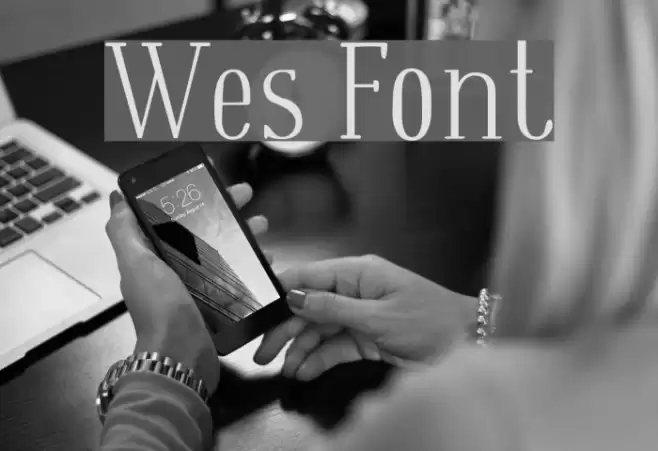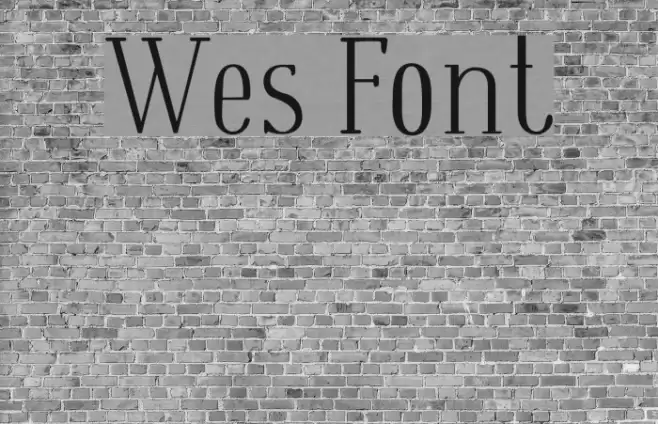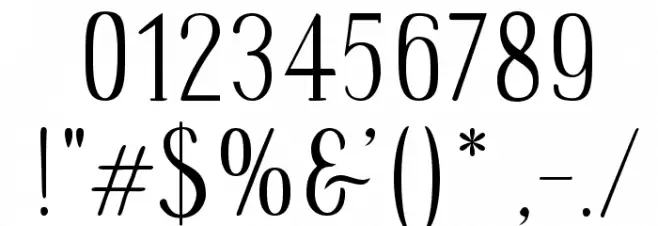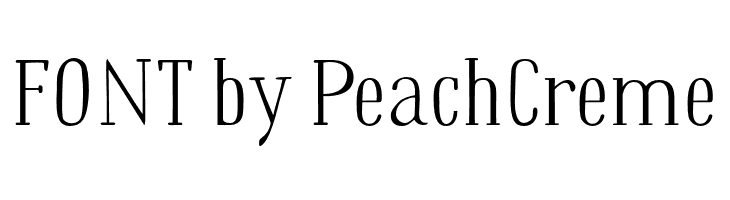
Wes Font
Wes Description
This font features a classic serif style with a modern twist. The uppercase letters are tall and elegant, with a slight curvature that adds a touch of sophistication. The lowercase letters maintain a consistent height, providing a balanced and harmonious appearance. The numerals are clear and distinct, making them easily readable. Special characters are well-defined, enhancing the font's versatility. The overall design is clean and professional, suitable for a wide range of applications.
A modern serif font with elegant curves and balanced proportions from Uncategorized fonts.
- Overall Style: Classic